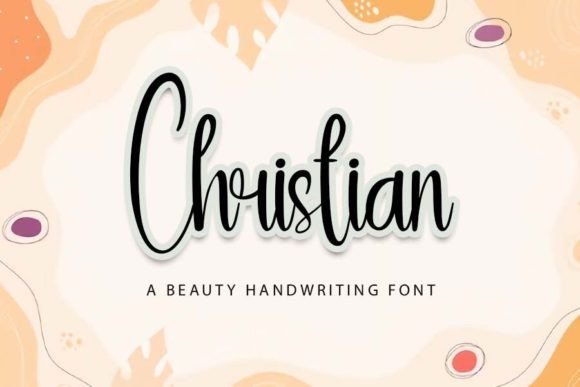
Unleashing the Timeless Charm of Christian Font
As a designer, there’s nothing quite like the thrill of bringing a project to life. You’ve poured over inspiration boards, crafted a vision, and finally, the moment of truth arrives – it’s time to choose the perfect font. That’s when you stumble upon Christian Font, a stunning handwritten font that exudes a contemporary atmosphere and timeless elegance. Inspired by classic calligraphy, this versatile font is designed to elevate your projects and leave a lasting impression.
Whether you’re working on a wedding invitation, a brand identity, or a social media campaign, Christian Font is the perfect companion to help you create something truly special. With its balanced and varied design, this font is a valuable addition to any designer’s toolkit, offering endless possibilities for creative expression. By incorporating Christian Font into your projects, you’ll add a touch of sophistication and personality that’s sure to captivate your audience.
Christian Font Key Features
- Font Family: Christian Font is a unique, hand-drawn font designed to evoke a sense of elegance and sophistication.
- Unique Characteristics: The font features intricate details, flourishes, and ornaments that add a touch of luxury and sophistication to any design.
- Character Set: Christian Font includes a comprehensive character set, including uppercase and lowercase letters, numbers, and punctuation marks.
Christian Font Review
As a designer, I have worked with a wide variety of fonts, and I must say that Christian Font is a mixed bag. Here’s my honest review:
- The font’s classic, elegant design is sure to appeal to those who prefer traditional typography.
- The letterforms are well-spaced, making it easy to read, even at smaller font sizes.
- The font supports a wide range of languages, making it a great option for international projects.
- The font is not particularly versatile, and it may not be the best choice for modern or experimental designs.
- The font lacks a bold weight, which can make it difficult to use in headings or titles.
- The font’s design may not be suitable for digital use, as it can appear blurry or pixelated at smaller sizes.
Overall, I would give Christian Font 3 out of 5 stars. While it’s a solid choice for traditional designs, it may not be the best option for more modern or experimental projects. With a few tweaks, such as adding a bold weight and improving its digital performance, Christian Font could be a truly exceptional font.
Christian Font is a versatile font that can be used for a variety of applications, including:
- Wedding invitations and decorations
- Church bulletins and announcements
- Personalized gifts and cards
- Business branding and marketing materials
Q: What is the recommended font size range for Christian Font?
The recommended font size range for Christian Font varies depending on the application and the intended audience. For body text, a font size range of 12-14 points is recommended, while for headings and titles, a font size range of 18-24 points is suitable. However, these are general guidelines, and the optimal font size may vary depending on the specific design requirements.